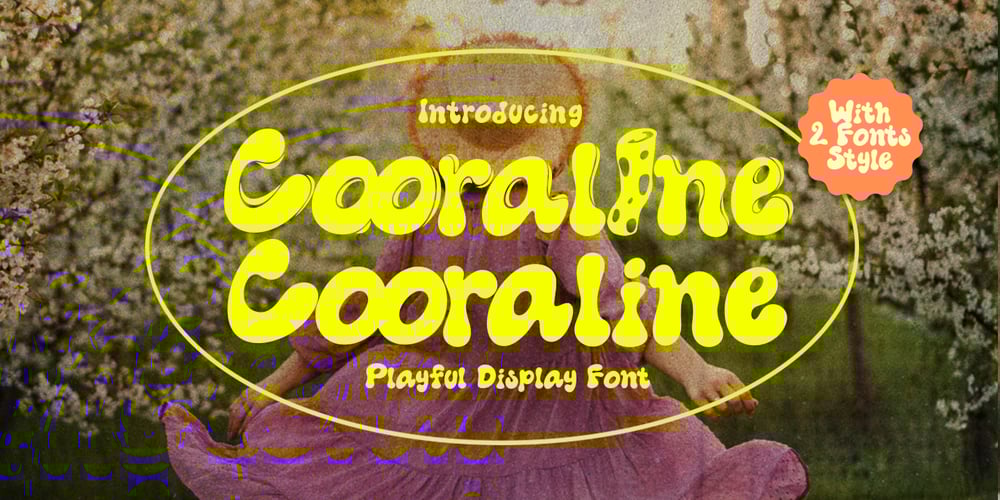
Cooraline Font Family was designed by Gitayogi Irhandi and published by Scratch Design. Cooraline contains 2 styles and family package options. Introducing to you, Cooraline! Comes with 2 fonts style!Cooraline it’s retro, psychedelic, bold, playful, and really unity together in your design to give it that retro feel. This font has an authentic groovy style that is perfect for making any project like a header, logo, quote, layout magazine, poster, packaging and label design, etc. Better which is use it on the 60s until 80s design project, this font will give some old-school touch to your design projects.Back in the psychedelia era Cooraline came with open-type features such as ligatures and extra clip art, and the other alternative Cooraline Shadow consists of underwater elements that suit with underwater atmosphere, so you can combine these two fonts to make an amazing retro, psychedelic with undersea vibes in your project designs.